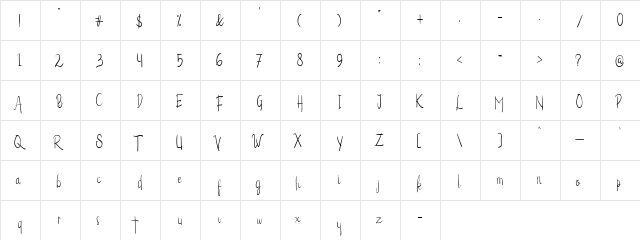
Alexandrea Regular
| Designer | Madatype Studio |
Design Context for Alexandrea Typeface
Alexandrea is a composed and adaptable typeface that performs quietly and consistently across a wide range of design contexts.